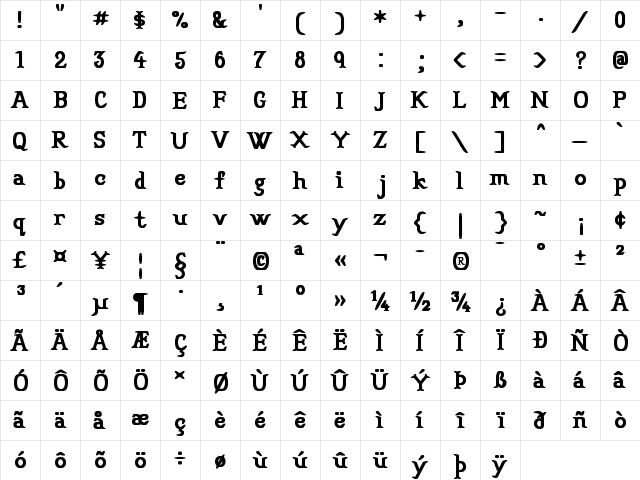
Very Convincing Regular
Design Context for Very Convincing Typeface
Very Convincing offers clean, dependable letterforms without strong stylistic allegiance, making it a practical choice for designers who need flexibility.
Pro Tip: Pair Very Convincing with a font of contrasting weight or personality to build a more expressive typographic hierarchy.